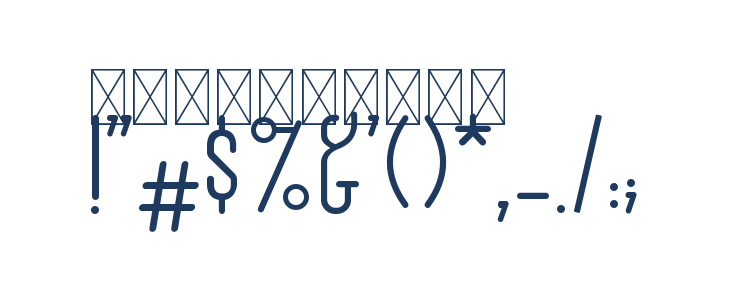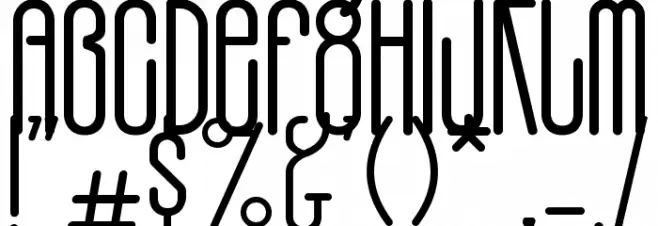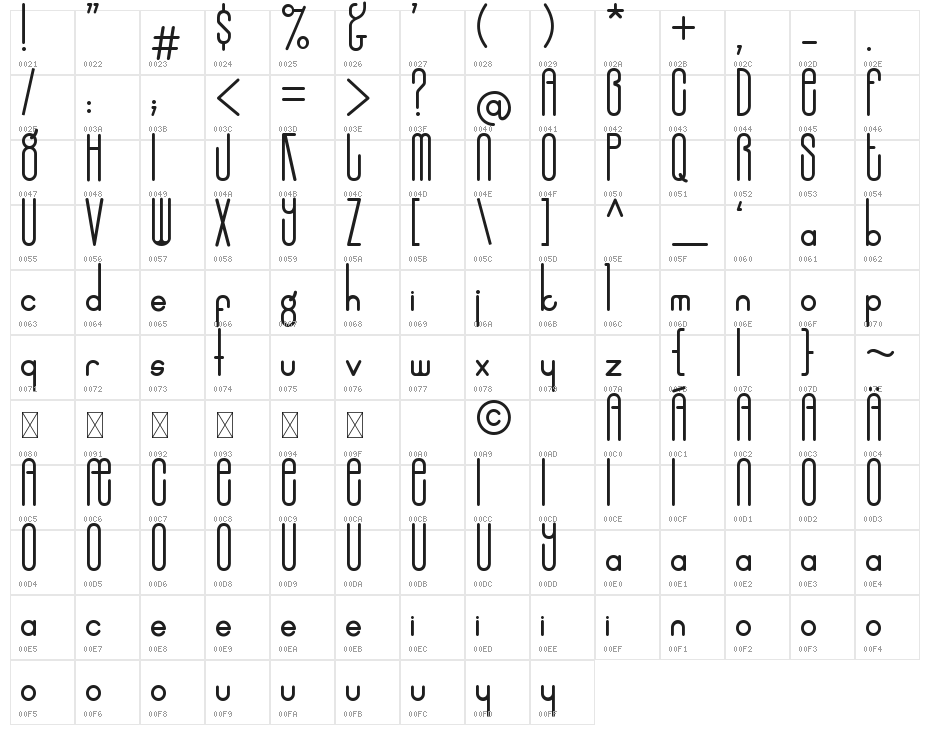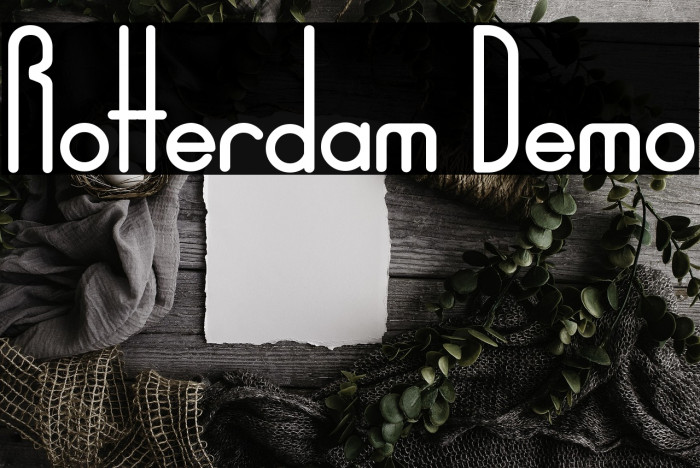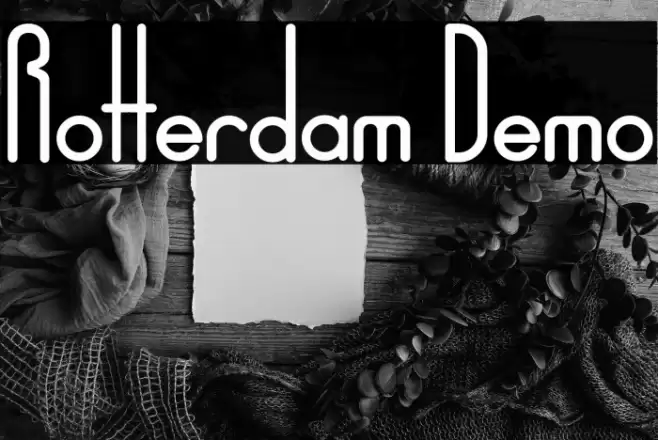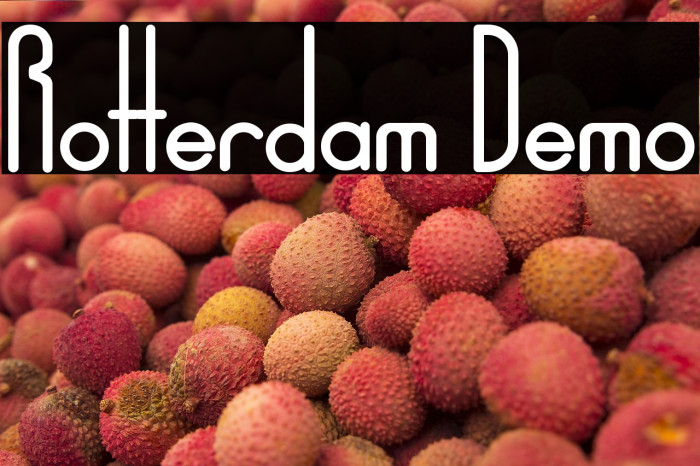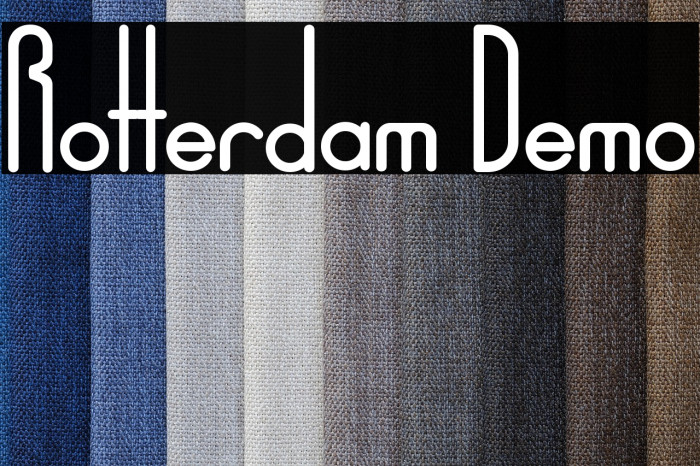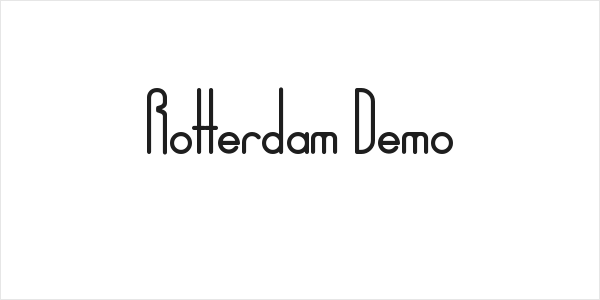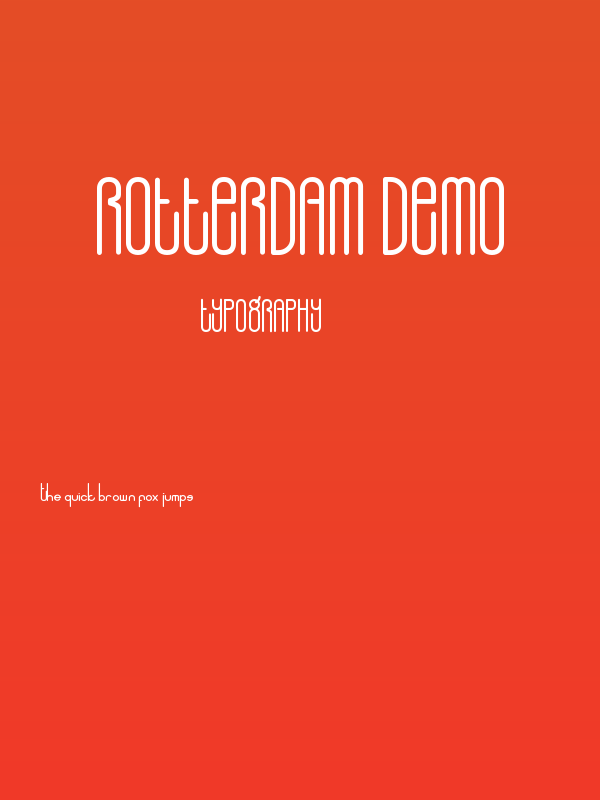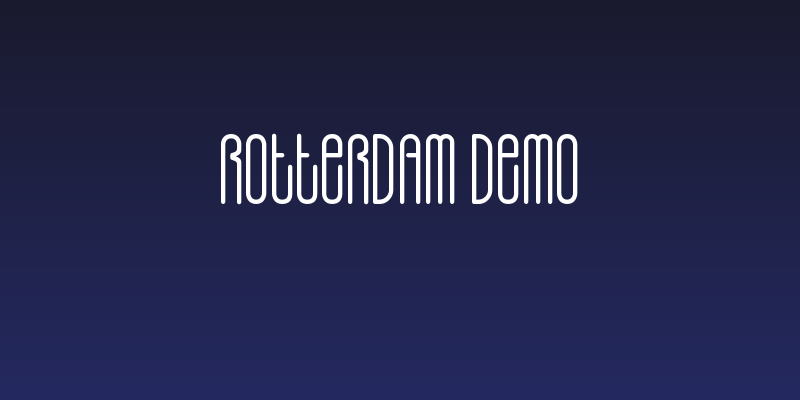
Rotterdam Demo Font
Rotterdam Demo Description
This font features a unique and modern design with a distinct geometric structure. The uppercase letters are tall and narrow, creating a striking vertical emphasis. The lowercase letters maintain a consistent width, offering a balanced and cohesive look. The numerals are bold and clear, ensuring readability. Special characters are creatively integrated, adding to the font's versatility. The overall style is contemporary and innovative, making it suitable for a variety of design projects.
| Proposed Projects | Ideal for branding, advertising, and editorial design where a modern and distinctive look is desired. |